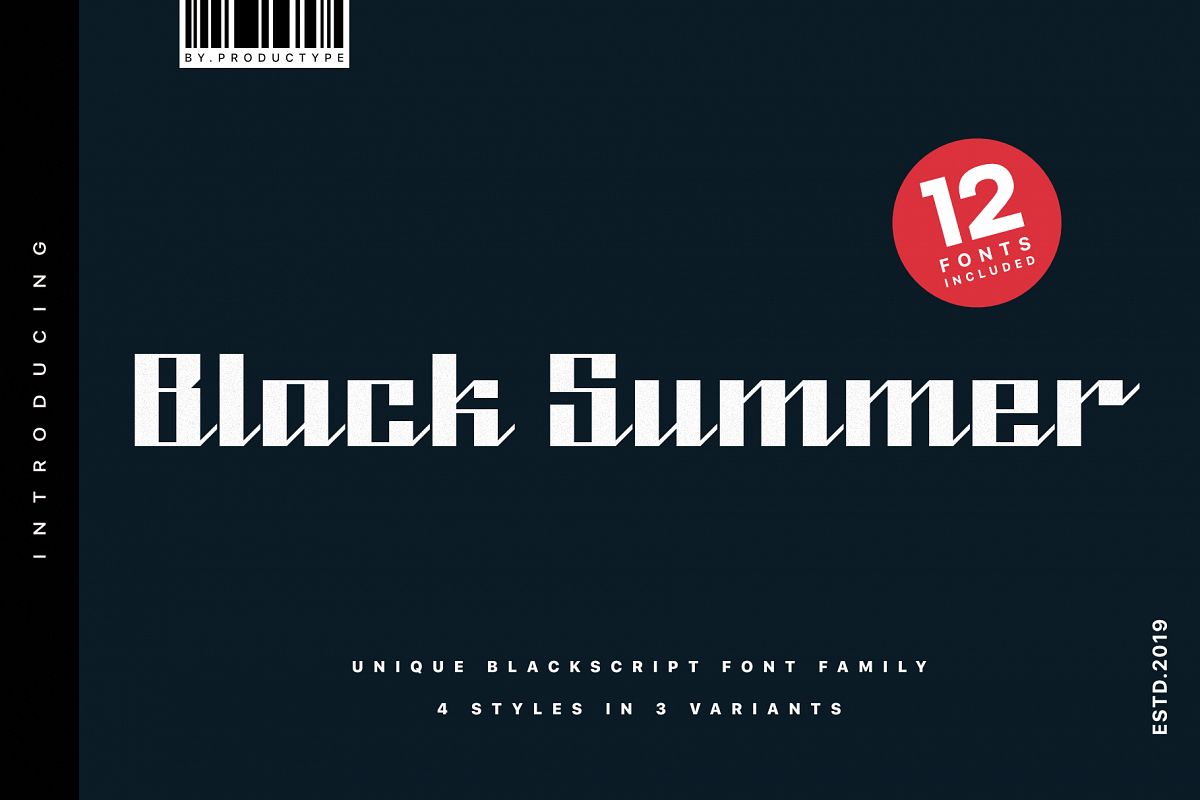
Black Summer Font Family
Black Summer is unique script font family, included 12 font total with 4 styles in 3 variants (linecut, linefull, and unlined).
Black summer is perfect for logos, header, titles, prints, apparel, logotype, quotes, packaging, flyer, poster, records cover & other creative process possibilities.